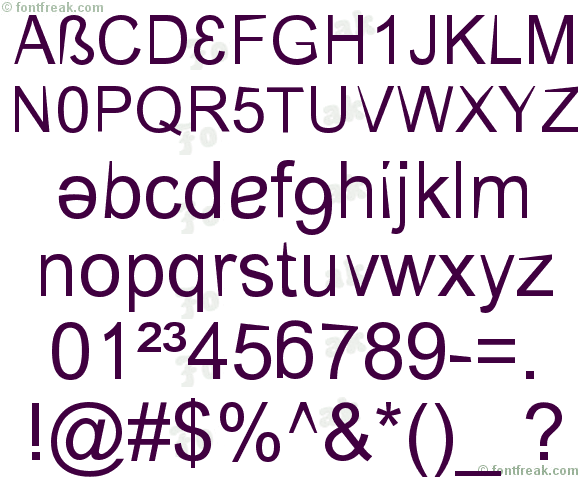
CerebralPares Falk
About Cerebral Pares
Cerebral Pares, crafted by Handgrenade Font Foundry, is a striking display font that captivates with its bold, geometric aesthetics. This typeface features a unique combination of clean lines and a playful character, making it an excellent choice for a variety of creative projects. The stroke weight is consistent throughout, providing a sense of stability, while the moderate contrast adds visual interest without overwhelming the viewer. The spacing is well-balanced, allowing for easy readability, and the distinct shapes of the letters give it a modern yet approachable feel.
This font is particularly well-suited for use cases such as eye-catching movie posters, dynamic branding for tech startups, vibrant restaurant menus, and engaging social media graphics. Its versatility allows graphic designers and content creators to utilize it in both digital and print formats, ensuring that any message stands out. Small business owners looking to create a memorable identity will find that Cerebral Pares offers just the right mix of sophistication and playfulness.
The target audience for Cerebral Pares includes graphic designers, small business owners, and content creators who are in search of a typeface that makes a statement. Whether for a personal project or a professional brand, this font provides an opportunity to convey a unique style that resonates with viewers.
What truly sets the Cerebral Pares font apart is its ability to combine modern design principles with a sense of fun and creativity. Its unique character makes it a standout choice for anyone looking to add a distinctive touch to their work. Best of all, you can access the Cerebral Pares font free download, making it an accessible option for those eager to enhance their designs without breaking the bank.